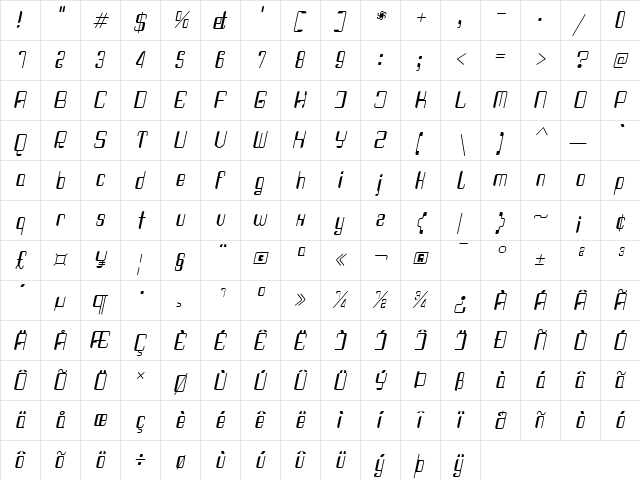
Haike Cond Italic
Italic · Otto Maurer Otto Maurer ·
DesignerOtto Maurer
Design Context for Haike Cond Typeface
Haike Cond is a composed and adaptable typeface that performs quietly and consistently across a wide range of design contexts. The dynamic lean of this cut emphasises speed and emphasis in any layout. The condensed width makes it efficient for tight spaces without sacrificing legibility.
Pro Tip: Use Haike Cond for emphasis, pull quotes, and subheadings where its slanted energy can add rhythm to the layout.